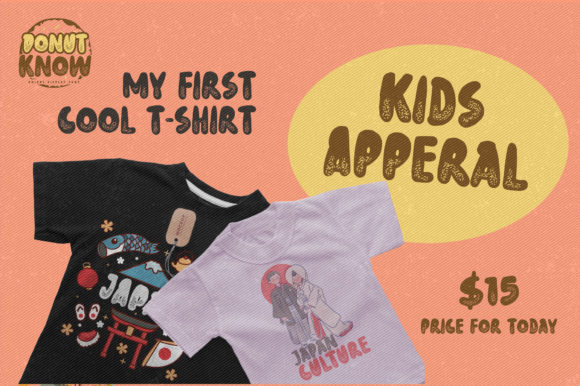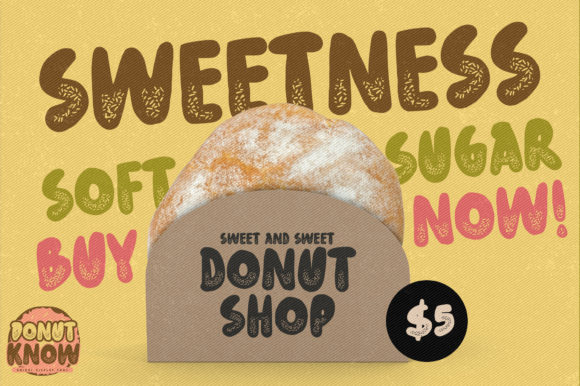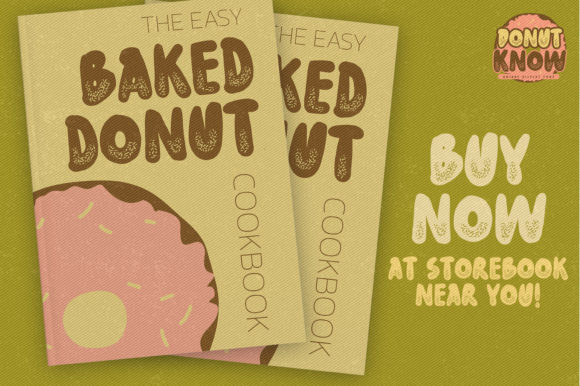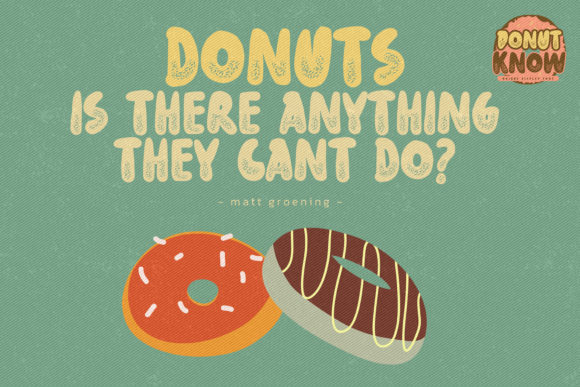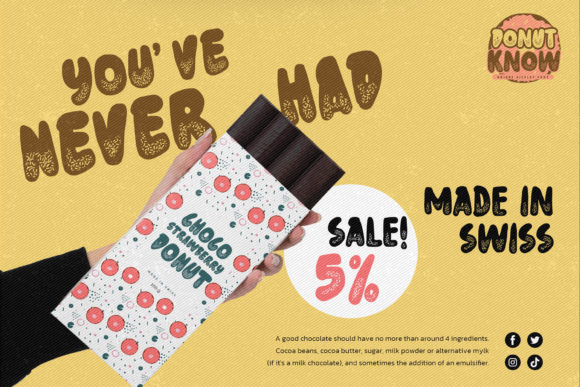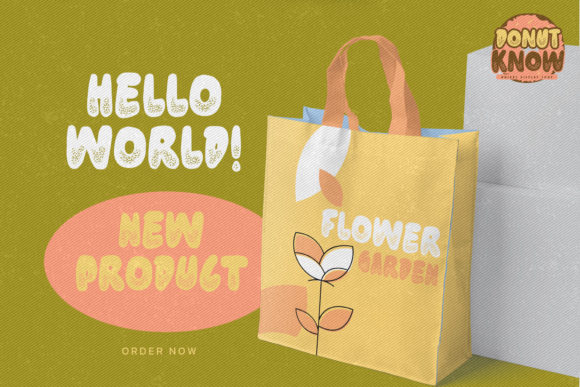
Introducing the Sweet Charm of Design: Donut Know Font
Who among us hasn’t experienced that moment when a simple yet elegant design sparks a burst of creativity? Maybe it’s the way the typography flows, or the way the colors dance together. Whatever it is, it’s that moment that drives us to create something truly special. And that’s exactly what we’ve achieved with the Donut Know Font – a unique display font that adds a playful touch to your designs.
Whether you’re working on an invitation, a logo, or a children’s book cover, the Donut Know Font is the perfect companion for your creative journey. Its natural feel and charming character will give your text a relaxed, authentic look that’s sure to captivate your audience. With its PUA encoded characters and multilingual support, this font is a valuable addition to any designer’s toolkit.
Donut Know Font Key Features
- Character Set: The font includes a comprehensive set of characters, including uppercase and lowercase letters, numerals, punctuation marks, and special characters, making it suitable for various typesetting needs.
- Unique Characteristics: Donut Know Font features a distinctive, playful design with rounded shapes and subtle irregularities, adding a touch of whimsy to any text-based composition.
- Font Style and Weight: Donut Know Font is available in three styles: Regular, Italic, and Bold, providing flexibility for creating visually appealing typography.
Designer Review: Donut Know Font
As a designer, I was excited to dive into the world of Donut Know Font. At first glance, this quirky font seems to be a perfect fit for those looking for a playful and whimsical vibe. ✨ Here are a few things that caught my eye:
- Unique character set: Donut Know Font offers a wide range of quirky and fun characters that will definitely add some personality to your design.
- Hand-drawn feel: The hand-drawn aesthetic gives the font a personal touch, making it perfect for projects that need a bit of whimsy.
- Customization options
- Limited legibility: Due to its playful nature, Donut Know Font can be a bit difficult to read, especially at smaller font sizes.
However, as with any font, there are some limitations that might make it less suitable for certain projects.
Overall, I think Donut Know Font is a great addition to any designer’s toolkit. While it may not be the best choice for every project, it’s perfect for those looking to add a bit of whimsy and personality to their designs.
To get the most out of the Donut Know Font, use it in conjunction with bold or italic text to add emphasis. You can also use it to create a unique title or heading that stands out from the rest of your design.
The Donut Know Font is perfect for creating playful and whimsical designs, such as children’s book covers, party invitations, or social media graphics. It’s also great for adding a touch of personality to your brand’s logo or marketing materials.